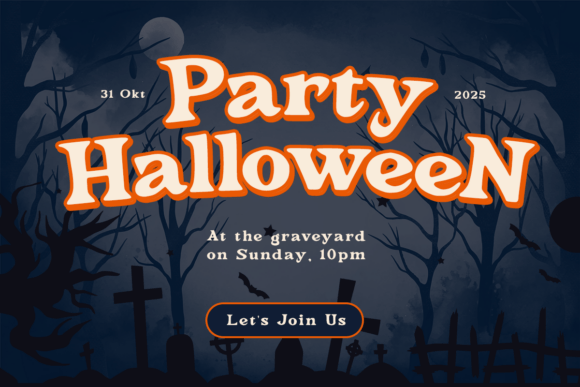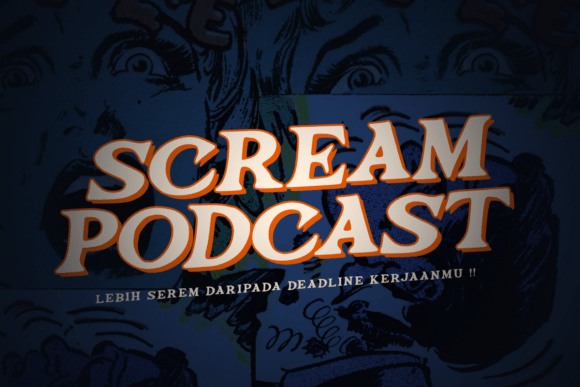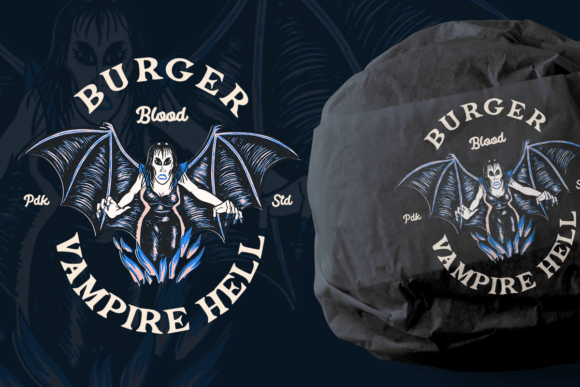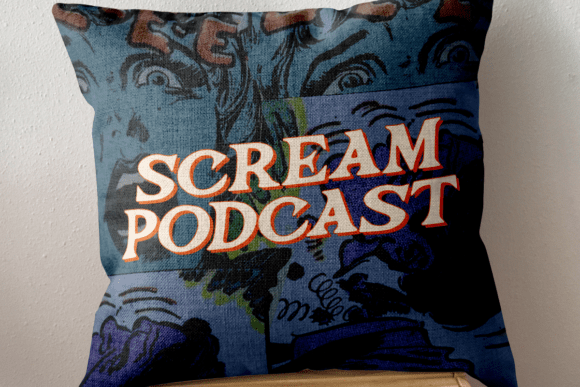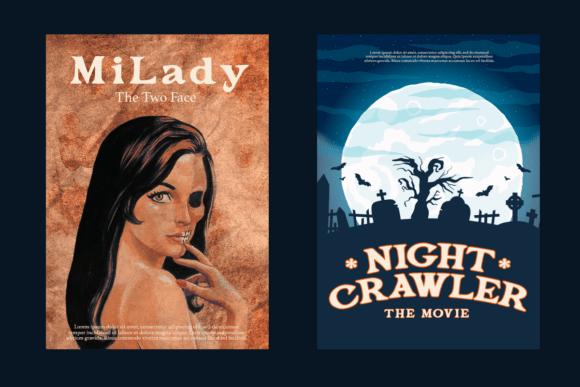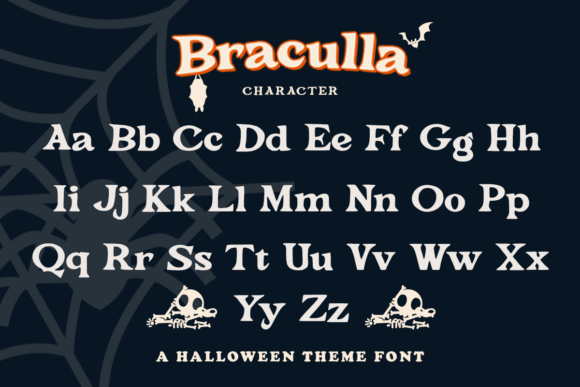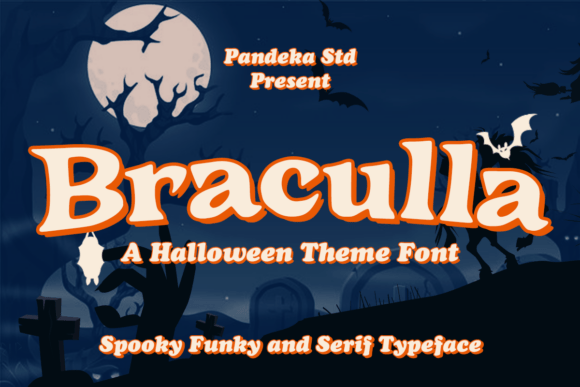
Braculla Font: Unleash the Eerie Gothic Horror Display
Are you looking for a font that can add a haunting touch to your designs? Look no further than Braculla, a bold serif font with eerie, vintage gothic touches. Perfect for creating a spooky atmosphere, Braculla is ideal for Halloween-themed designs, horror book covers, haunted posters, and eerie branding.
The Unique Features of Braculla Font
Braculla’s sharp, distressed letterforms make it a standout font for any designer or crafter looking to add a touch of gothic horror to their work. The font’s bold, serif design is reminiscent of vintage horror movies and classic gothic literature, evoking a sense of eeriness and foreboding.
With Braculla, you can create a range of designs that are sure to send shivers down the spine. From spooky typography and creepy lettering to eerie design and vintage horror-style branding, this font is versatile and easy to use.
Perfect for Halloween and Horror Themes
Halloween is just around the corner, and Braculla is the perfect font to get you in the mood. Whether you’re designing invitations, decorations, or party favors, this font is sure to add a touch of spooky sophistication to your work.
But Braculla’s uses don’t have to be limited to Halloween. Horror book covers, haunted house branding, and creepy advertising campaigns can all benefit from the font’s eerie, gothic aesthetic.
What Makes Braculla Stand Out
So what sets Braculla apart from other fonts? Here are just a few features that make it a standout:
- Bold, serif design: Braculla’s bold, serif design is perfect for creating eye-catching headlines and titles.
- Distressed letterforms: The font’s distressed letterforms give it a worn, vintage look that’s perfect for creating a sense of eeriness and foreboding.
- Eerie, gothic touches: Braculla’s gothic touches, such as its sharp, pointed serifs, add to its haunting atmosphere.
- Vintage horror feel: The font’s vintage horror feel makes it perfect for creating designs that evoke a sense of classic horror and gothic literature.
How to Use Braculla in Your Designs
Braculla is easy to use and can be incorporated into a range of designs, from print to digital. Here are just a few ideas to get you started:
- Horror book covers: Use Braculla to create eye-catching horror book covers that are sure to stand out on bookshelves.
- Haunted posters: Create spooky posters for haunted houses, Halloween parties, or horror movie screenings.
- Eerie branding: Use Braculla to create branding for your business or product that evokes a sense of eeriness and foreboding.
- Spooky typography: Use Braculla to create spooky typography for your designs, from creepy quotes to haunted headings.
If you’re looking for a font that can add a haunting touch to your designs, look no further than Braculla. With its bold, serif design, distressed letterforms, and eerie, gothic touches, this font is perfect for creating a range of spooky designs. Whether you’re a designer, crafter, or simply someone who loves horror and gothic aesthetics, Braculla is a must-have font.